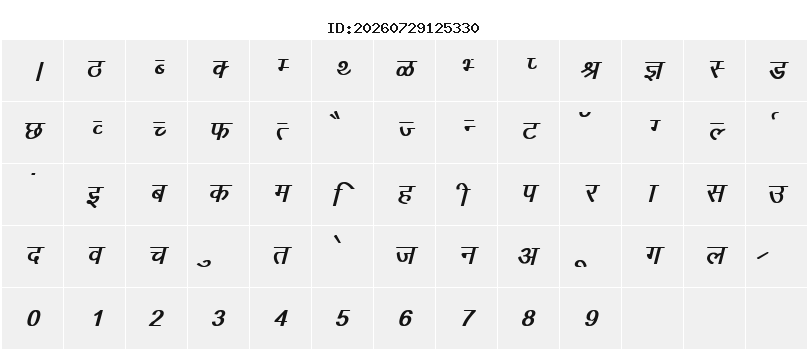
Kruti Dev 010  Preview
• Font Name: Kruti Dev 010
• Font ID: Alts:DevLys 010 Bold Italic
• Full Font Name: Kruti Dev 010 Bold Italic
• PostScript Name: KrutiDev010BoldItalic
About Kruti Dev 010 .ttf
Kruti Dev 010 .ttf is a modern, elegant sans-serif font designed for ultimate readability and visual harmony. Perfect for branding, headlines, web design, and print materials.